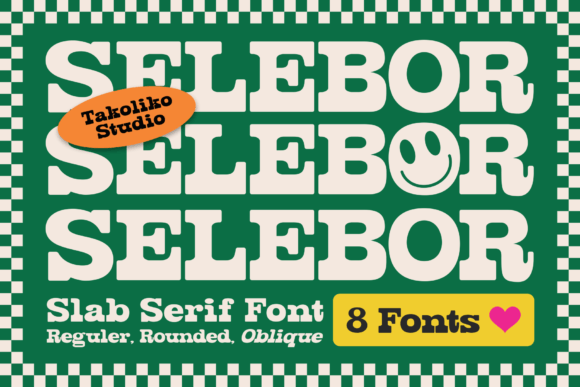
Are you looking for a unique, eye-catching font that captures the spirit of the 80s and 90s? Look no further than Selebor Font, a slab serif font created by takoliko. With its retro but not old feeling, Selebor is the perfect font for any project that needs a touch of vintage cartoon vibe.
If you're designing stickers, t-shirts, or food logos, Selebor will add that extra pop to your design. Its versatility means it can be used for both fun and formal projects, making it a must-have for any designer's toolkit.
But Selebor is more than just a pretty font - it's also a great way to communicate your brand. Whether you're creating a new logo or revamping your website, Selebor's unique style will help you stand out from the crowd. And because it's so easy to match to your existing projects, you won't have to spend hours tweaking your design to get it just right.